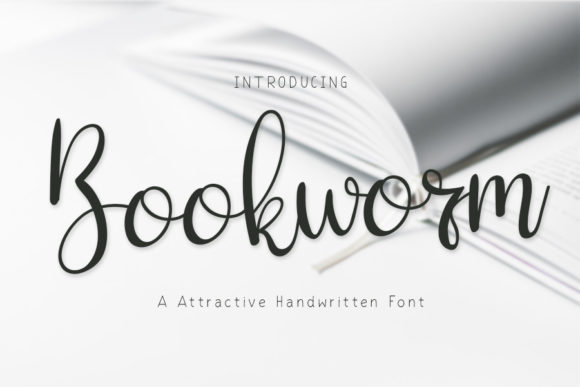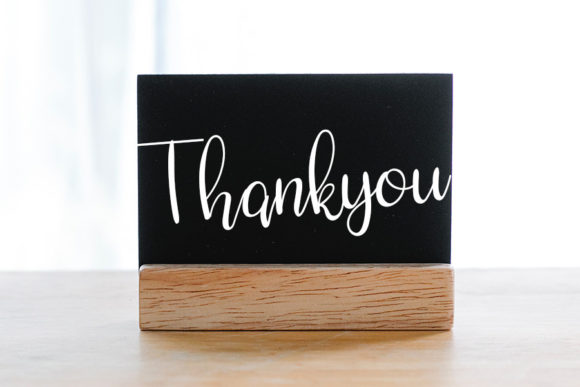
Bookworm Font
About Bookworm Font
Bookwrom is a charming and sweet handwriting font, that exudes elegance and class. This font was particularly crafted for those who need a beautiful and refreshing look to their designs.